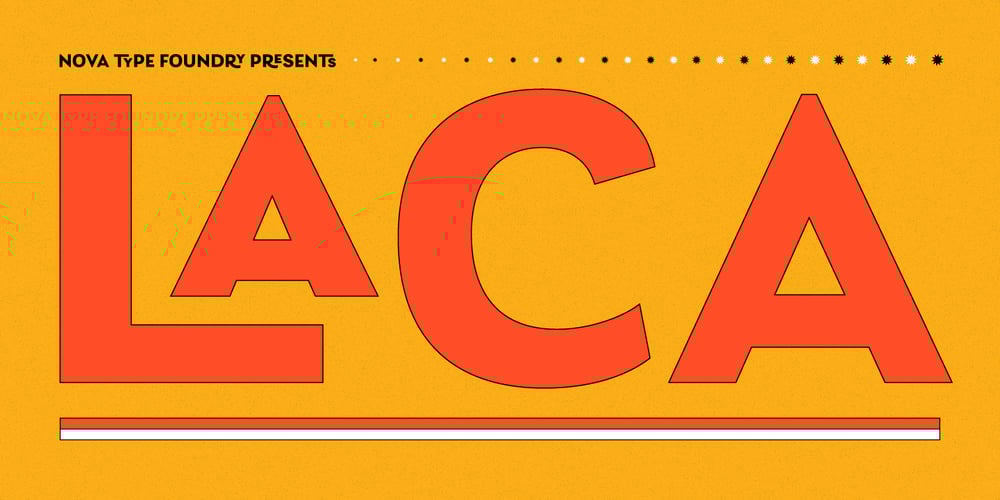
Laca Font Family was designed by Joana Correia and published by Nova Type Foundry. Laca contains 16 styles and family package options. Laca is a semi-sans serif inspired by retro Portuguese packaging of soaps. Laca is the Portuguese word for hairspray. The starting point was to design a typeface that would bring a familiar feeling of closeness and warmth but giving it a modern look ensuring it works well on modern platforms. It’s a lively typeface that brings texture and personality to the text. Perfect for branding and for all communications. There is an upright italic version available through the stylistic set that brings even more friendliness to the font. The result is a versatile typeface that has many OpenType features that brings stylistic alternates to the designer.